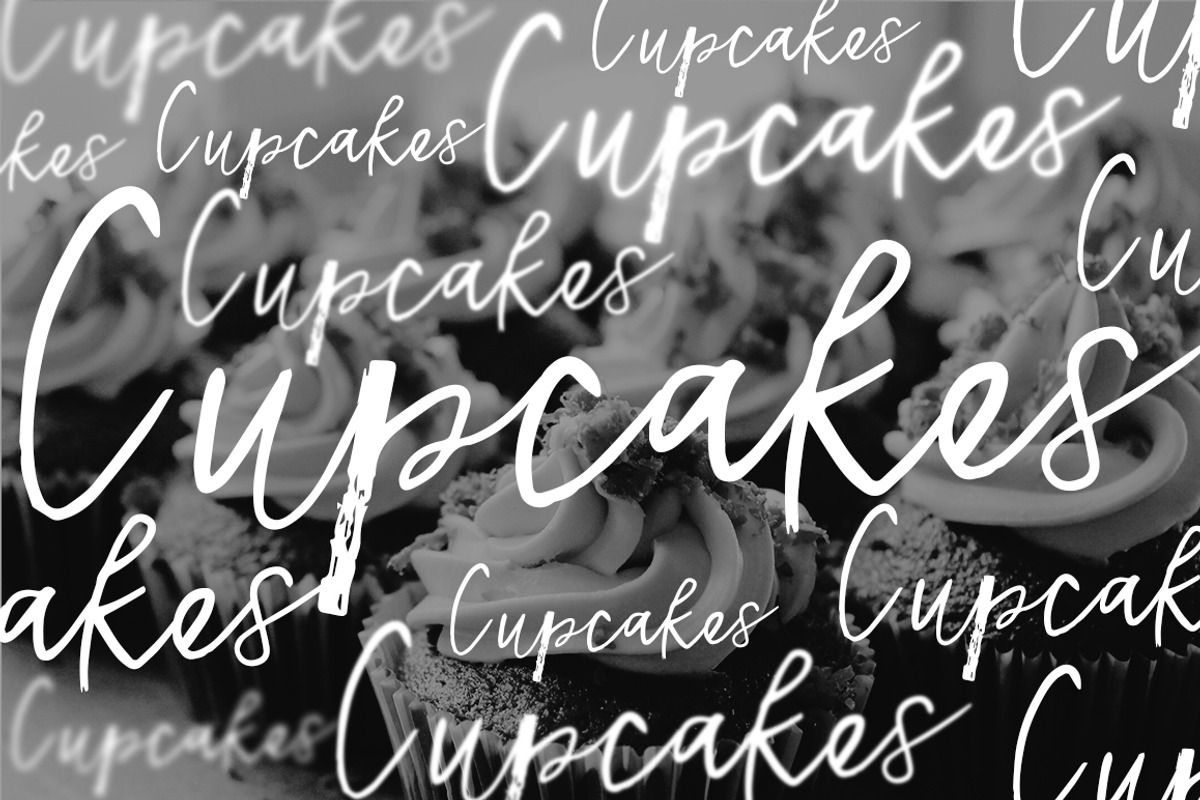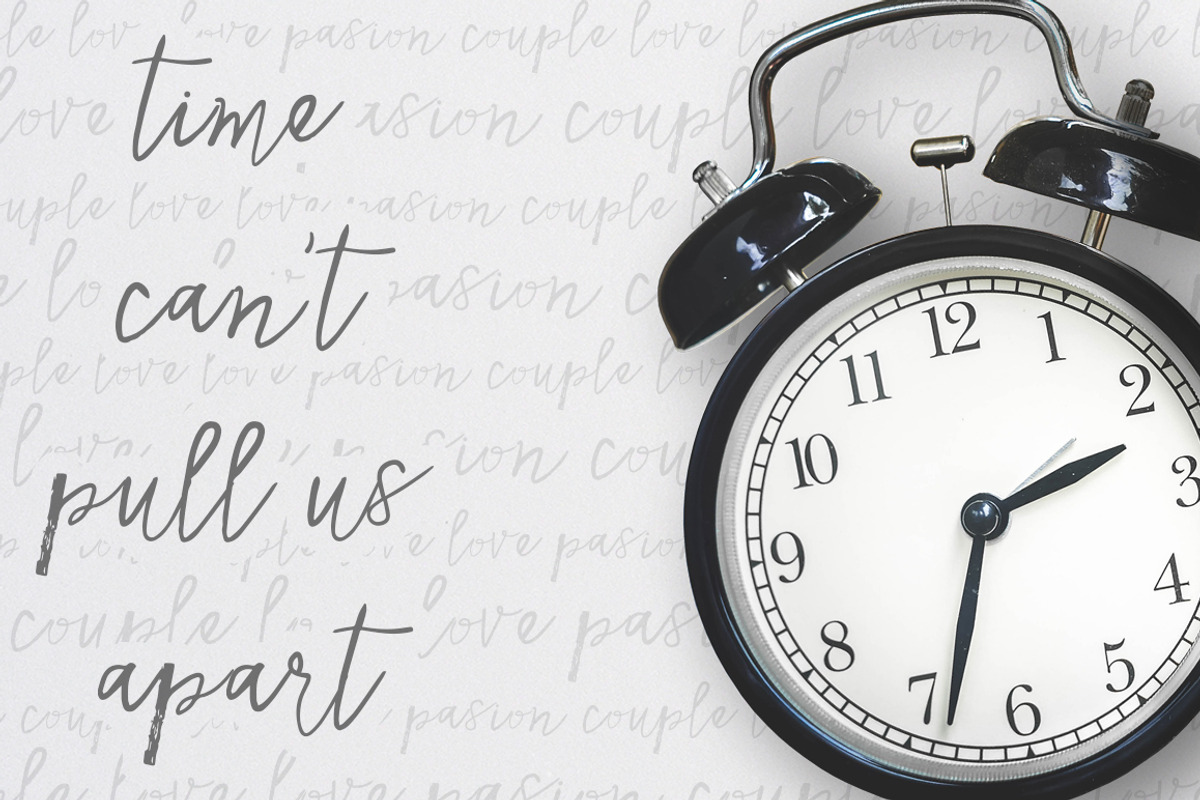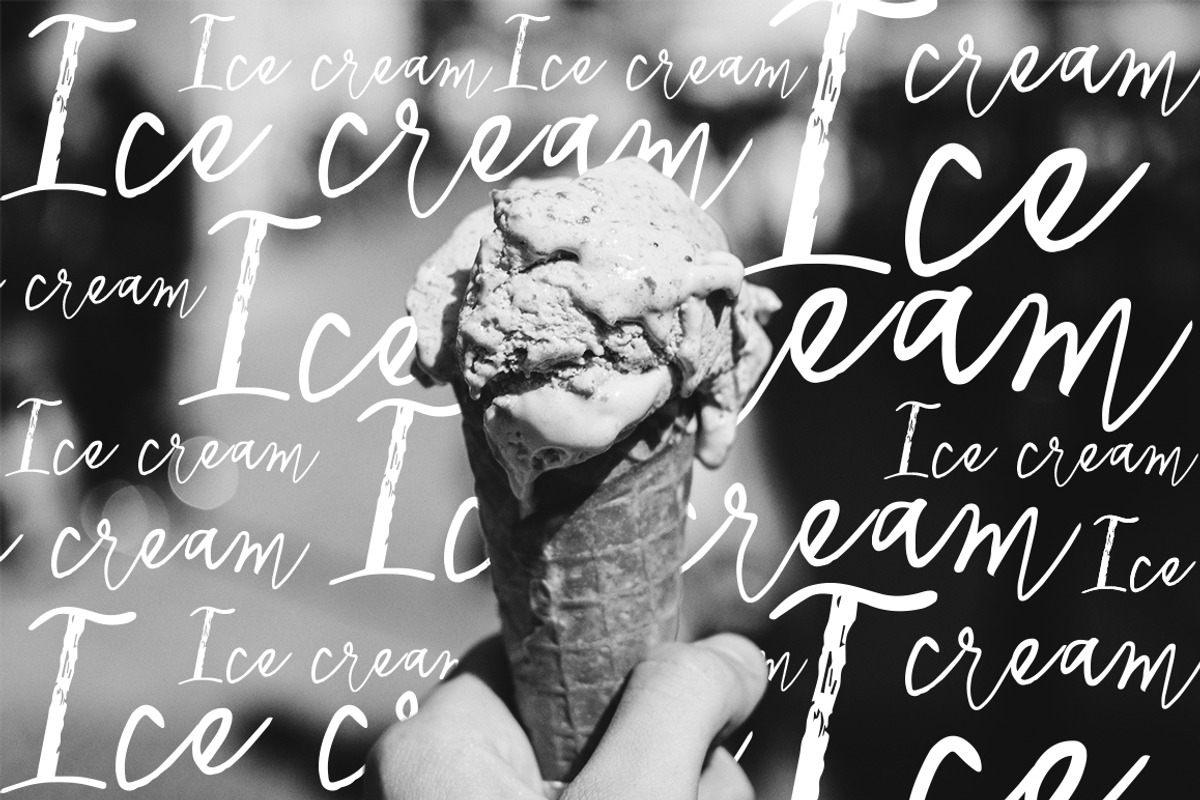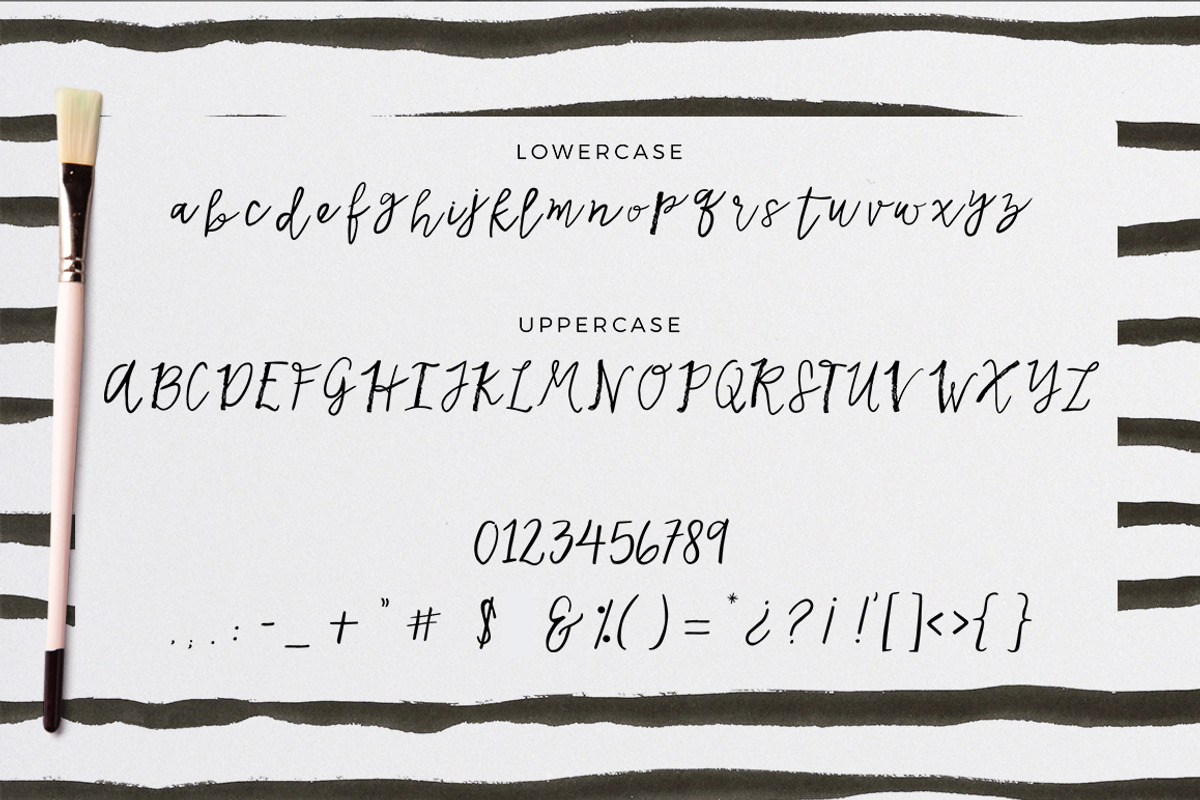
Kata!- cursive handmade font
Kata!- cursive handmade font by Andrea De Oliveira is a font selected for branding, posters, packaging, typography.
- Caps have a dry brush style It has latin/hispanic characters ( ¡Viva el poder de la ñ!
Why Kata!- cursive handmade font is worth a look
Kata!- cursive handmade font by Andrea De Oliveira fits naturally into Branding, posters, packaging, typography.